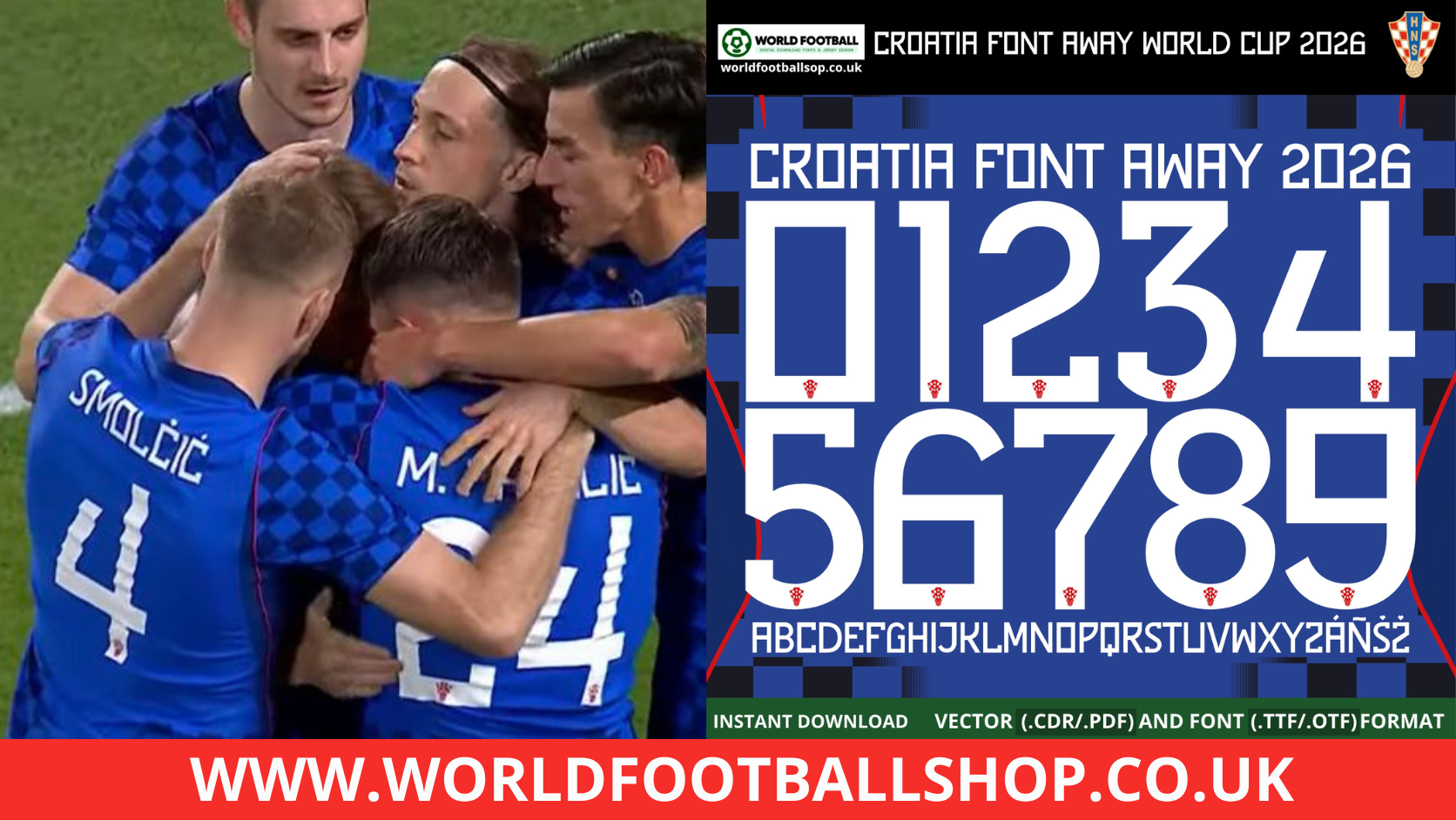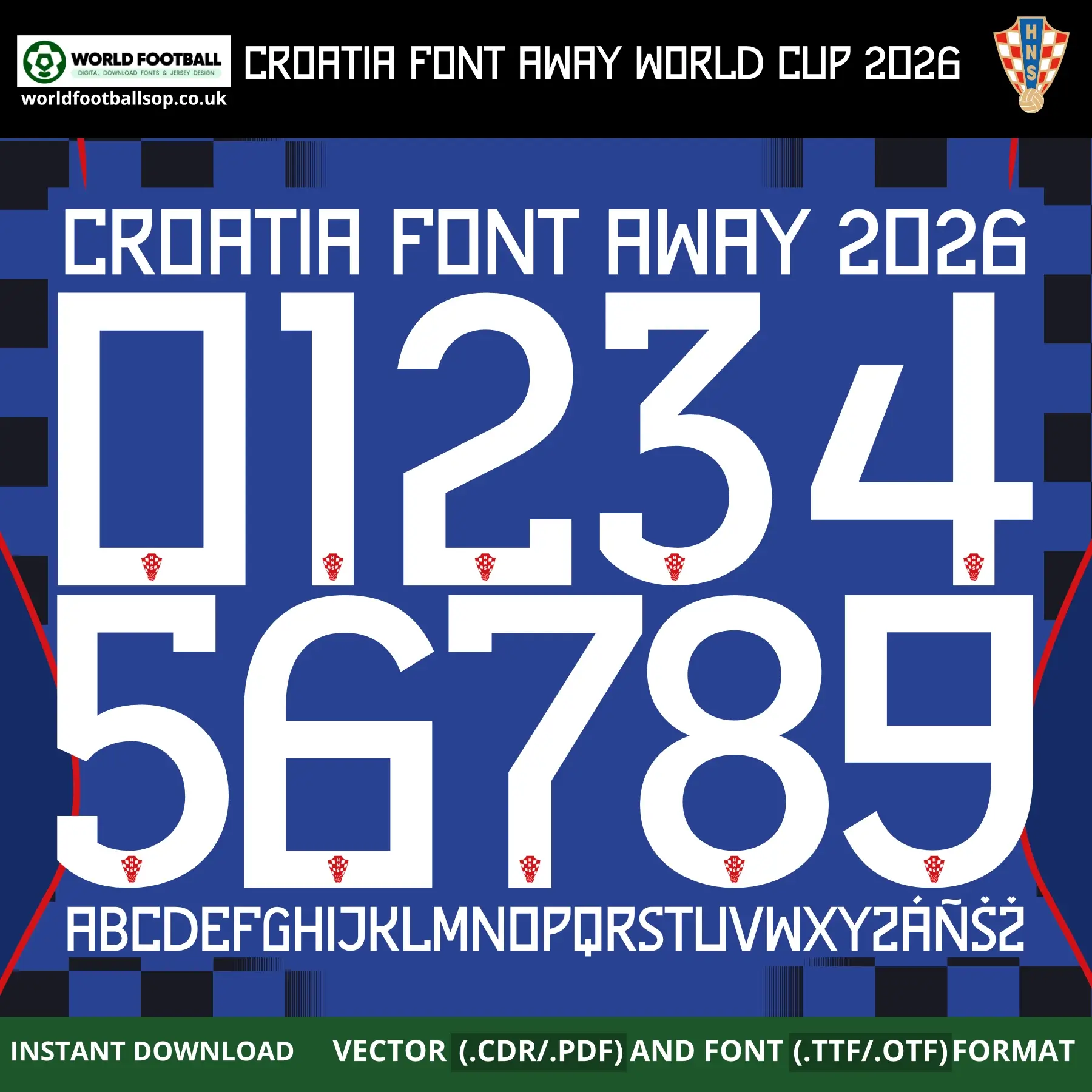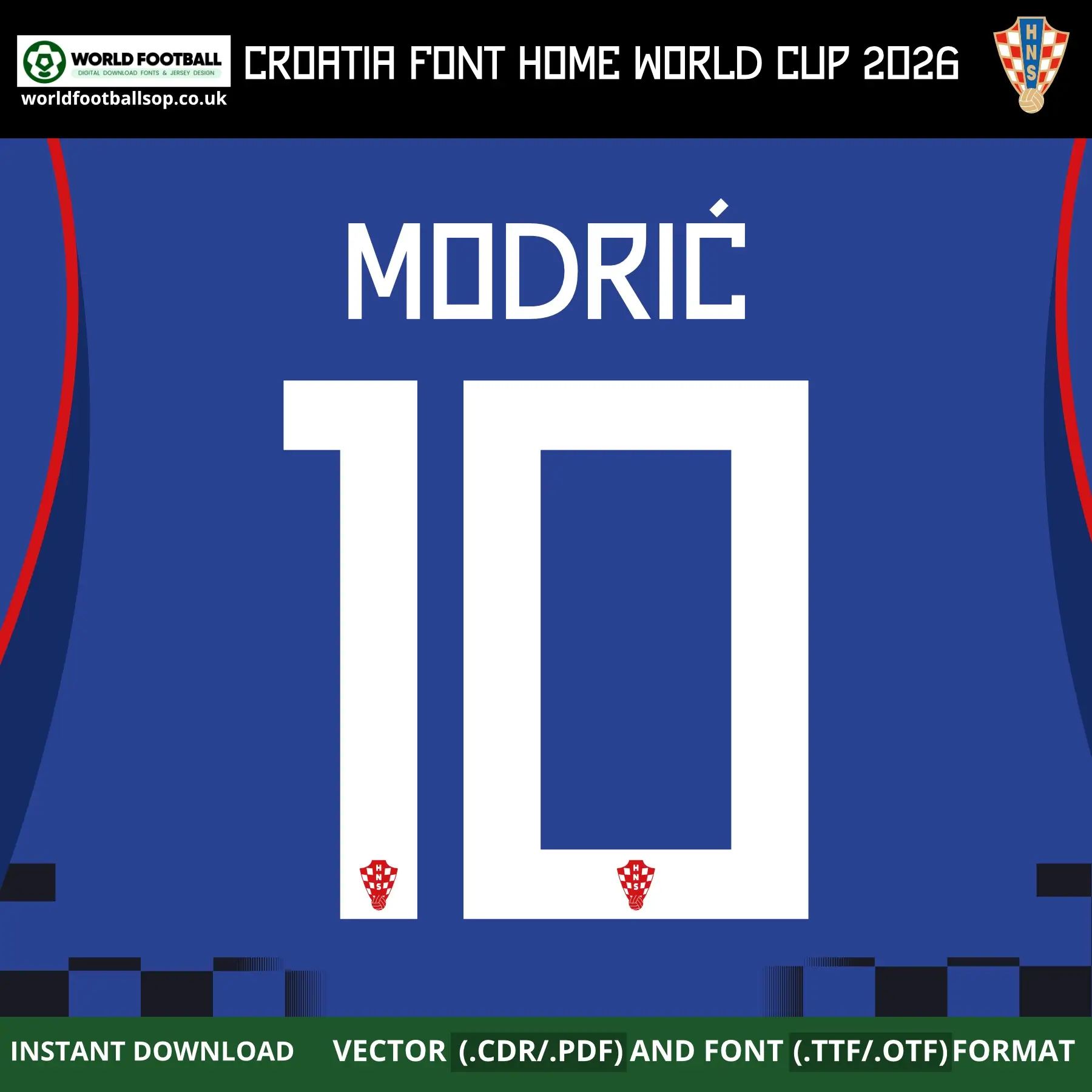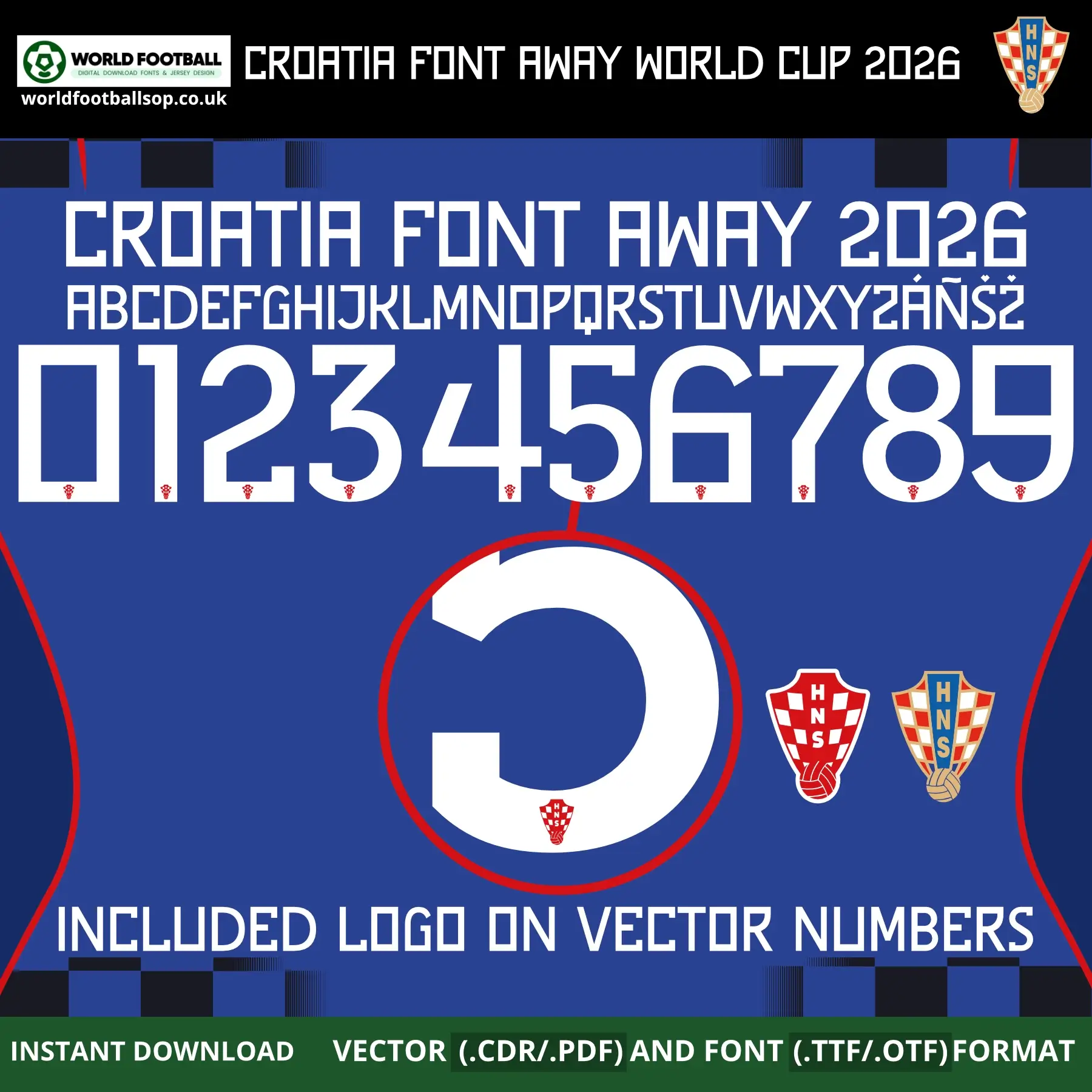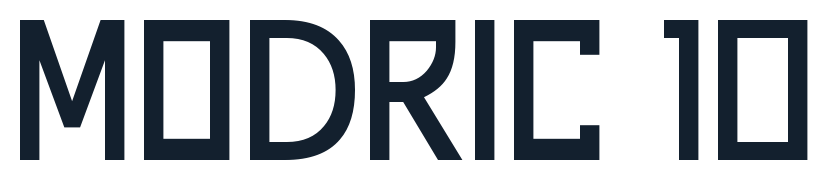
Croatia Away Font World Cup 2026 – Official‑style Jersey Typography
This Croatia Away Font World Cup 2026 kit recreates the bold, wide geometric lettering used on Croatia’s striking royal blue away shirts for the 2026 FIFA World Cup in USA, Mexico and Canada. The tall, open-form numbers and letters feature crisp white fill with a clean blue hollow cutout running through each character – the same design language seen on the Vatreni’s away kit, set against the deep royal blue background with dark blue and black checkered panel detailing and red side trim. It is perfect for fans, designers and printers who want authentic‑looking names and numbers on custom Croatia away kits and football graphics.
Full uppercase alphabet A-Z and numbers 0-9 with Croatian accents (Á, Ñ, Š, Ž)
Preview layouts showing complete number set and example name/number combo – MODRIĆ 10
World Cup accuracy: Inspired by the exclusive Croatia Away Font World Cup 2026, not a generic typeface
High legibility: Bold, open-form white characters keep numbers clear on both TV and print designs while maintaining Croatia’s iconic away identity
Whether you are designing a full squad of custom Croatia Vatreni away shirts or a single fan jersey with your own name and number, this Croatia Away Font World Cup 2026 gives your project a professional, on‑pitch look.